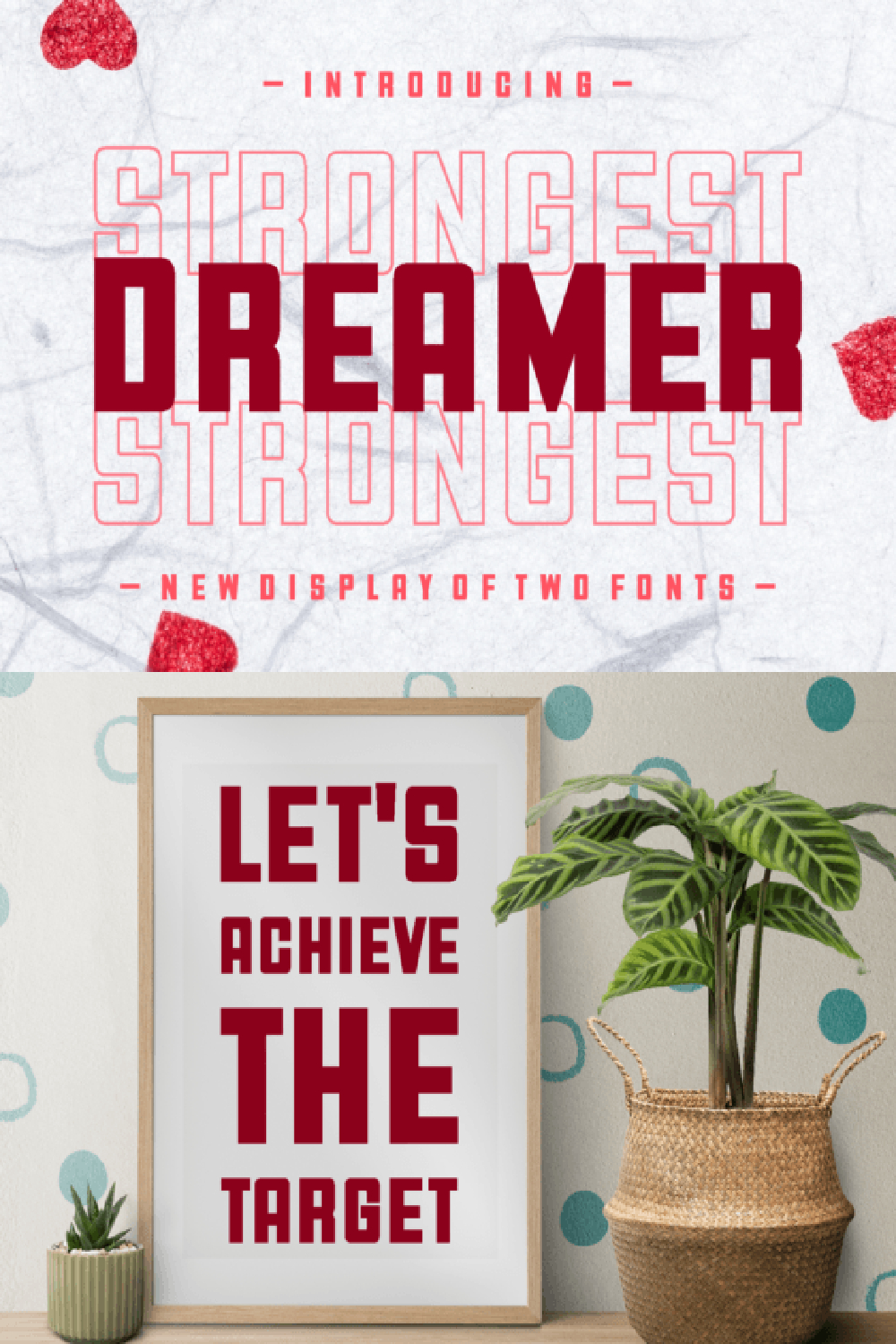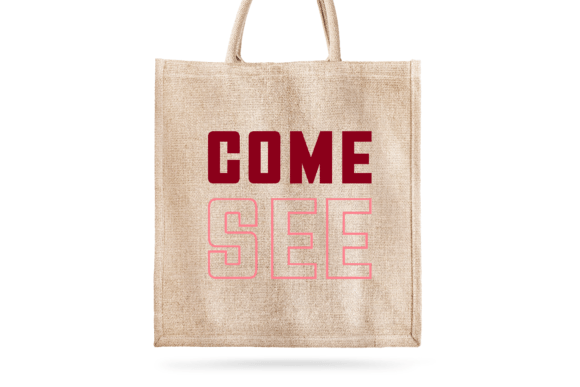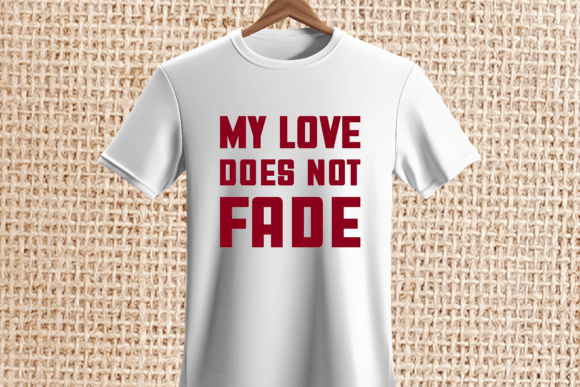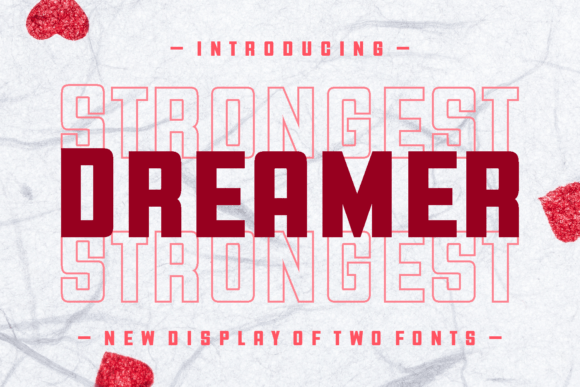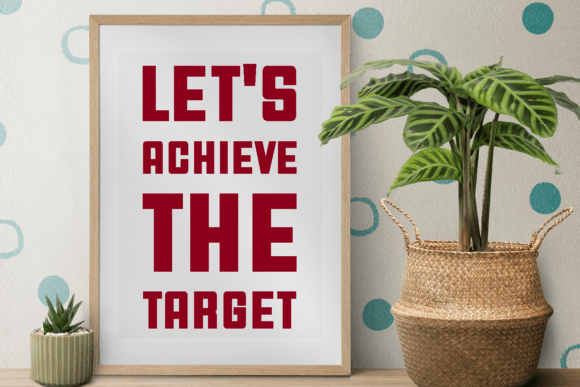
Strongest Dreamer Font: Retro Display Font for Playful T-shirt Design
About the Strongest Dreamer Font
Add a touch of class to your work with the Strongest Dreamer Font, a truly exceptional typeface. Immerse yourself in the vivacious charm of the Strongest Dreamer Font, a retro-inspired design that oozes vintage appeal. With the heart-warming characteristics of a Valentine font and the fun-loving energy of a Hippie Font, it’s a versatile and appealing font to enhance any text. It’s especially suitable for children and teachers, making it perfect as a School Font, and adds a playful spirit to a T-shirt design or Kids Font.
Strongest Dreamer Font Usage Examples